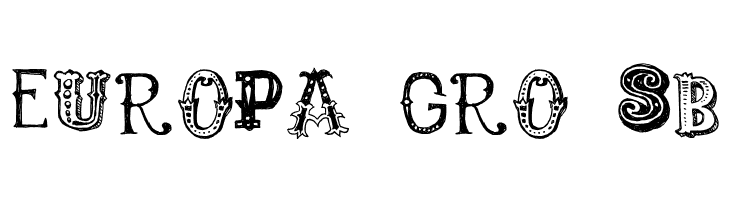
An ornate, Gothic-inspired font with elaborate curls and high contrast.
An ornate and decorative font with intricate patterns and swirls.
An ornate, decorative font with intricate detailing and a vintage flair.
An ornate and decorative font with intricate patterns, perfect for vintage-themed designs.
An ornate and decorative font with intricate floral embellishments.
An ornate, high-contrast decorative font with vintage flair.
An ornate and decorative font with intricate detailing and vintage flair.
An ornate, vintage-style decorative font with intricate detailing.
An ornate and decorative font with intricate detailing and vintage charm.